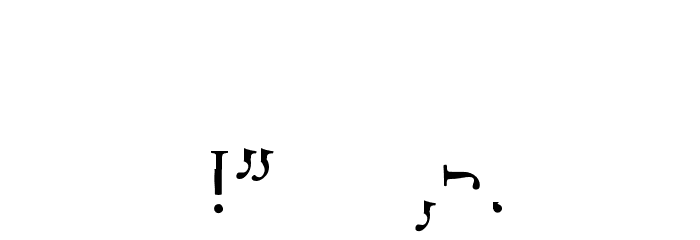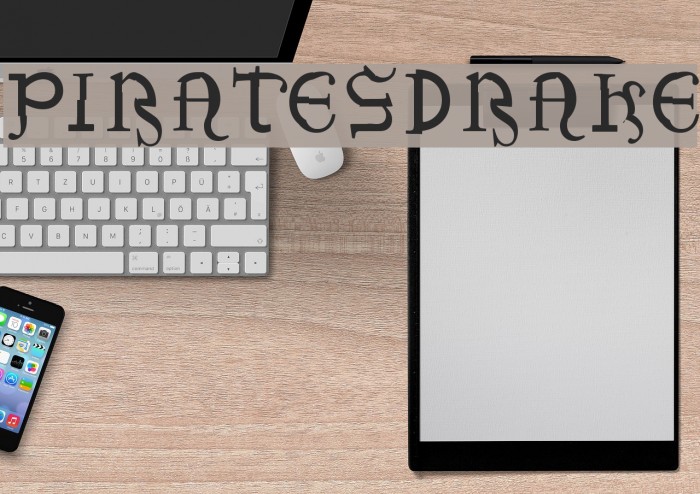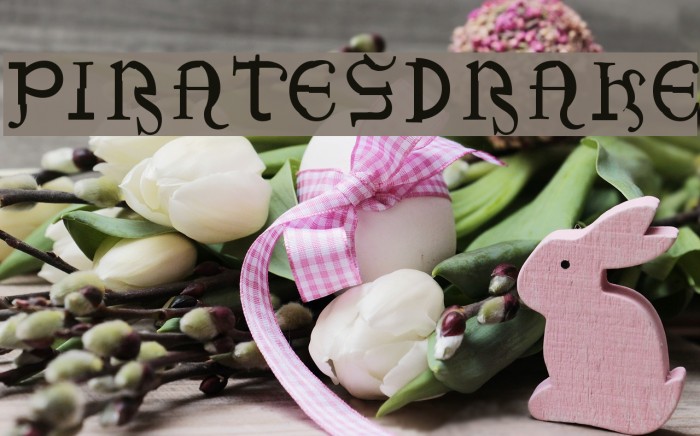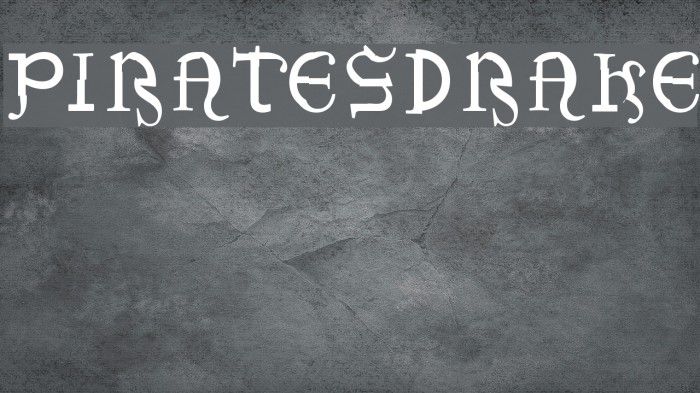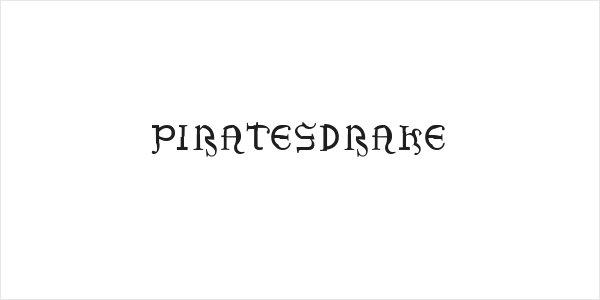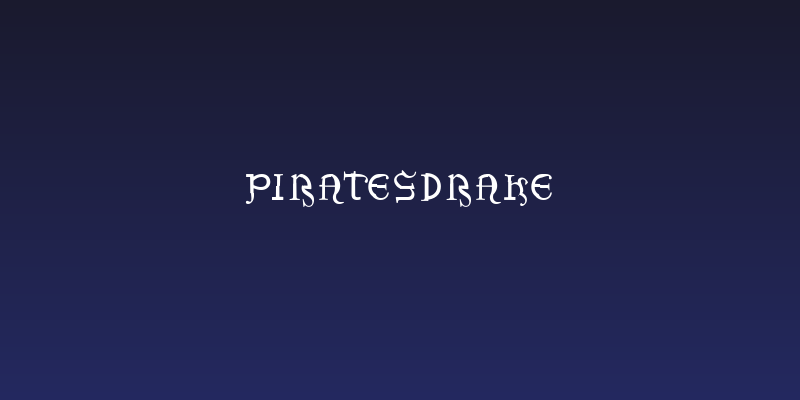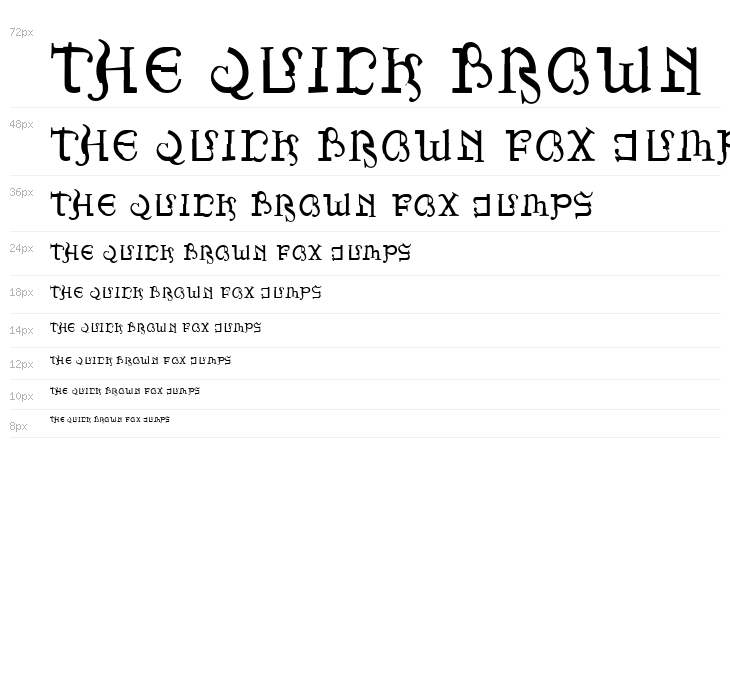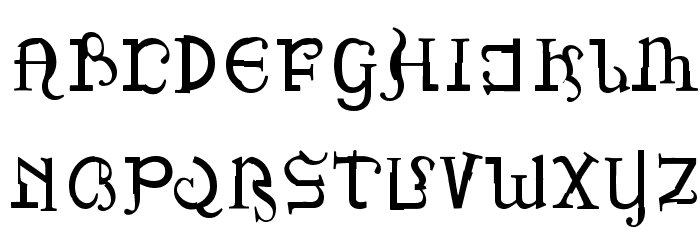
PiratesDrake Font
PiratesDrake Description
This font features a bold and adventurous style, reminiscent of pirate-themed aesthetics. The characters are uniquely designed with sharp, angular edges and decorative elements that evoke a sense of mystery and intrigue. The uppercase letters are particularly striking, with exaggerated serifs and flourishes that add to the overall dramatic effect. The lowercase letters maintain a consistent style, ensuring readability while still adhering to the theme. This font is perfect for projects that require a touch of fantasy or historical flair, such as themed events, book covers, or branding for adventure-related products.
| Proposed Projects | Ideal for themed events, book covers, adventure branding, and fantasy projects. |